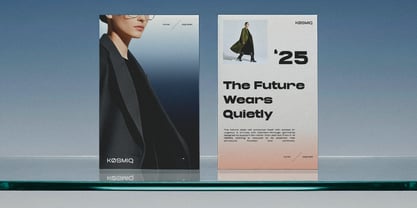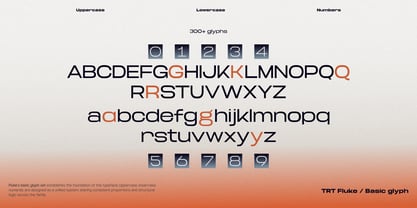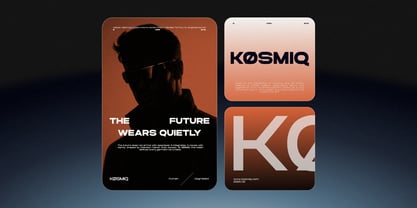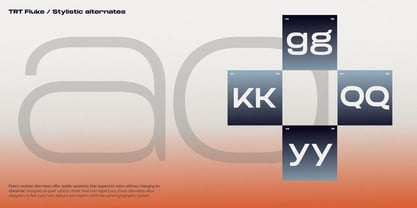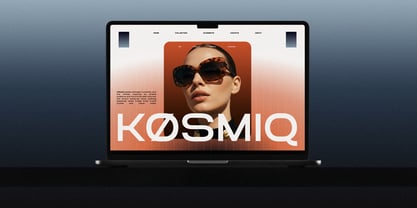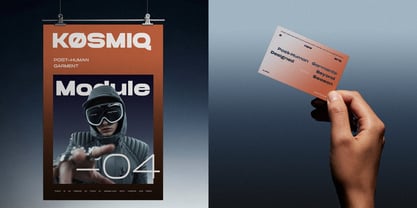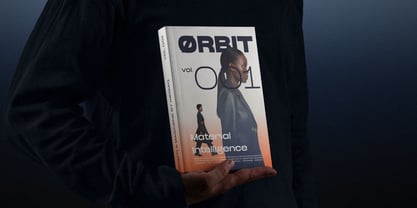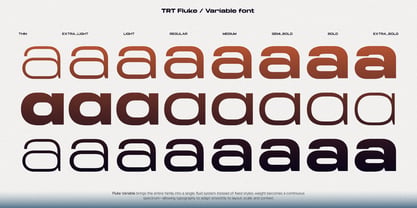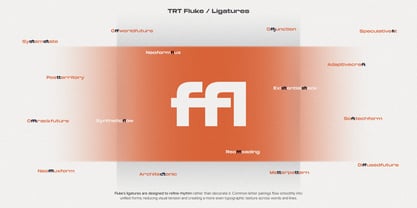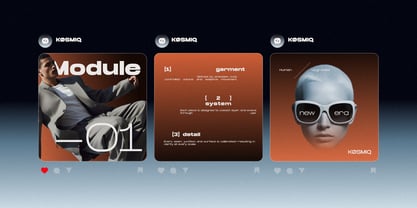
TRT Fluke
The TRT Fluke Font Family was designed by Yusilo Oktaprima Ardani and published by True Type Lab. TRT Fluke contains 8 styles and family package options. More about this family
TRT Fluke is an expanded modern sans serif typeface built around space, tension, and strong visual presence. Each letterform in TRT Fluke is carefully extended with intention, creating a wide and confident rhythm that feels bold yet controlled. Its expanded proportions allow words to breathe, turning typography into a visual statement rather than just a container for text. Designed for designs that demand instant impact, TRT Fluke excels in headlines, posters, branding, and editorial layouts. The strong horizontal emphasis delivers both stability and movement, making TRT Fluke ideal for storytelling-driven visuals where clarity, emotion, and presence must coexist. Built for designers who work with scale, layout, and contrast as narrative tools, TRT Fluke supports a wide range of creative needs. From modern branding systems and editorial spreads to digital campaigns and UI-forward visuals, this expanded sans serif family delivers a clean, contemporary, and professional tone across both print and digital environments.